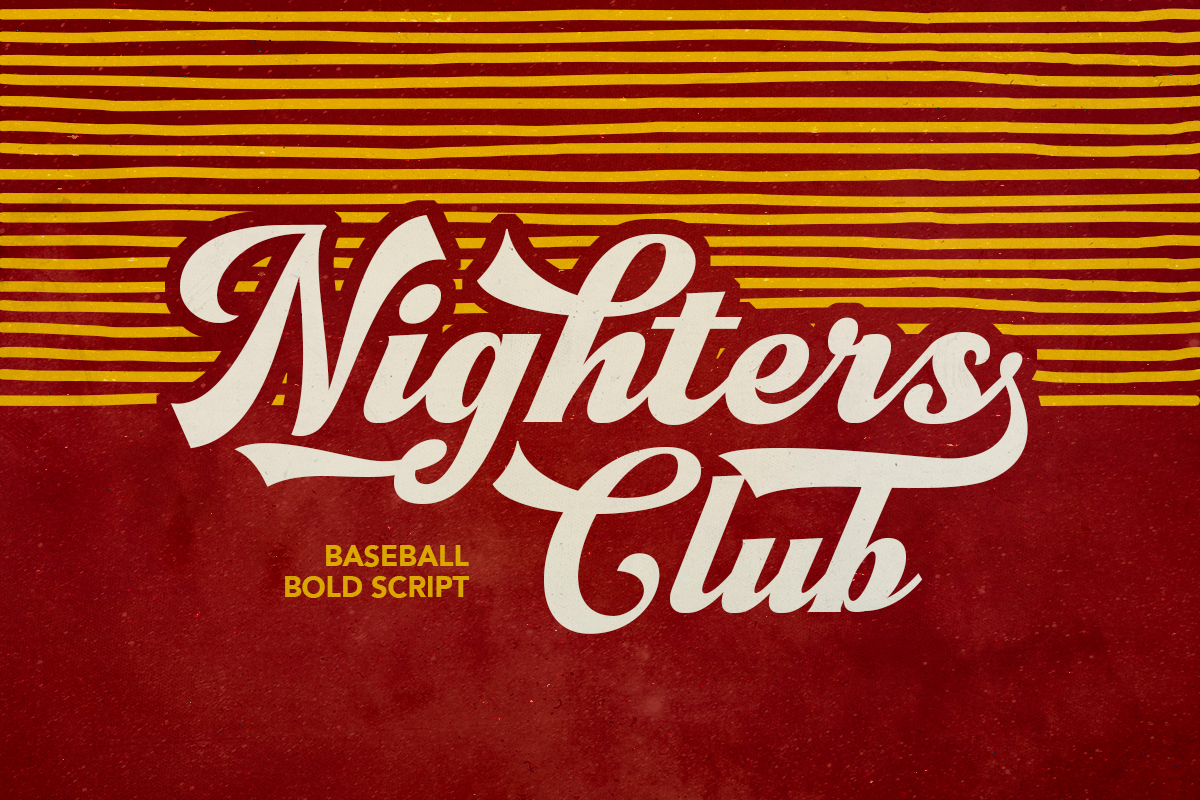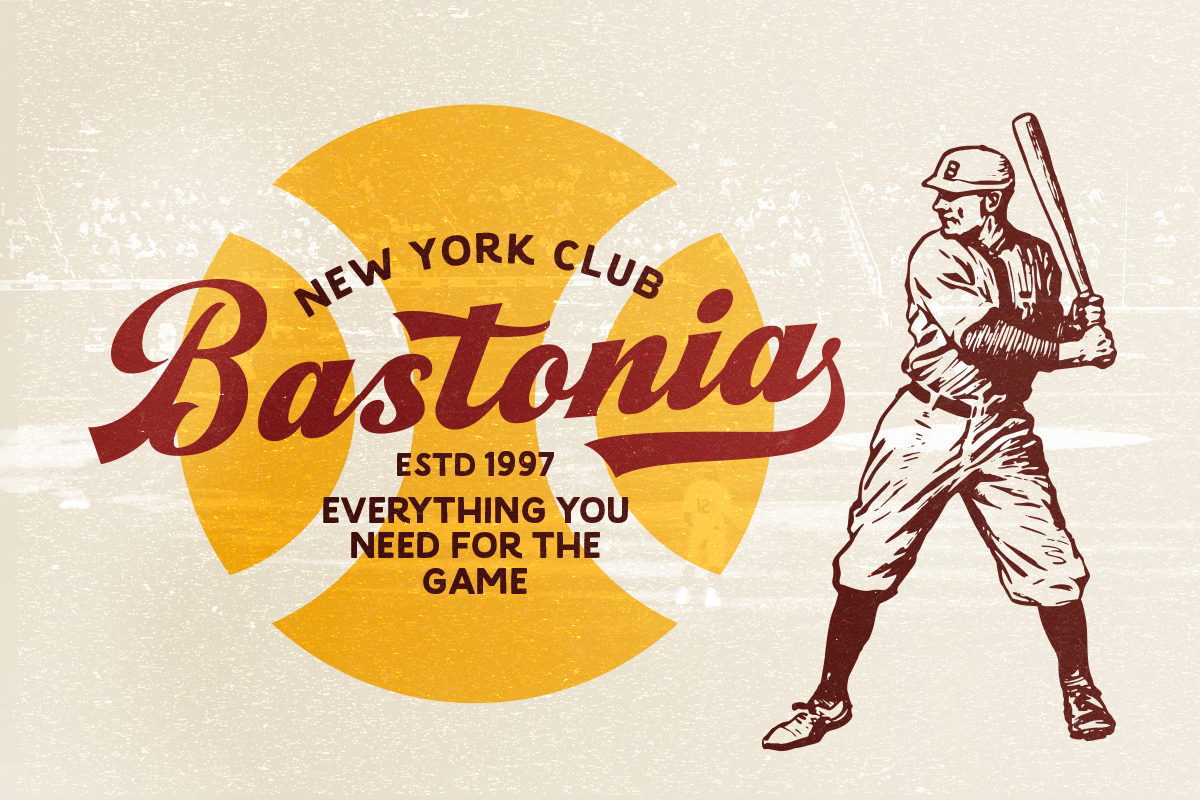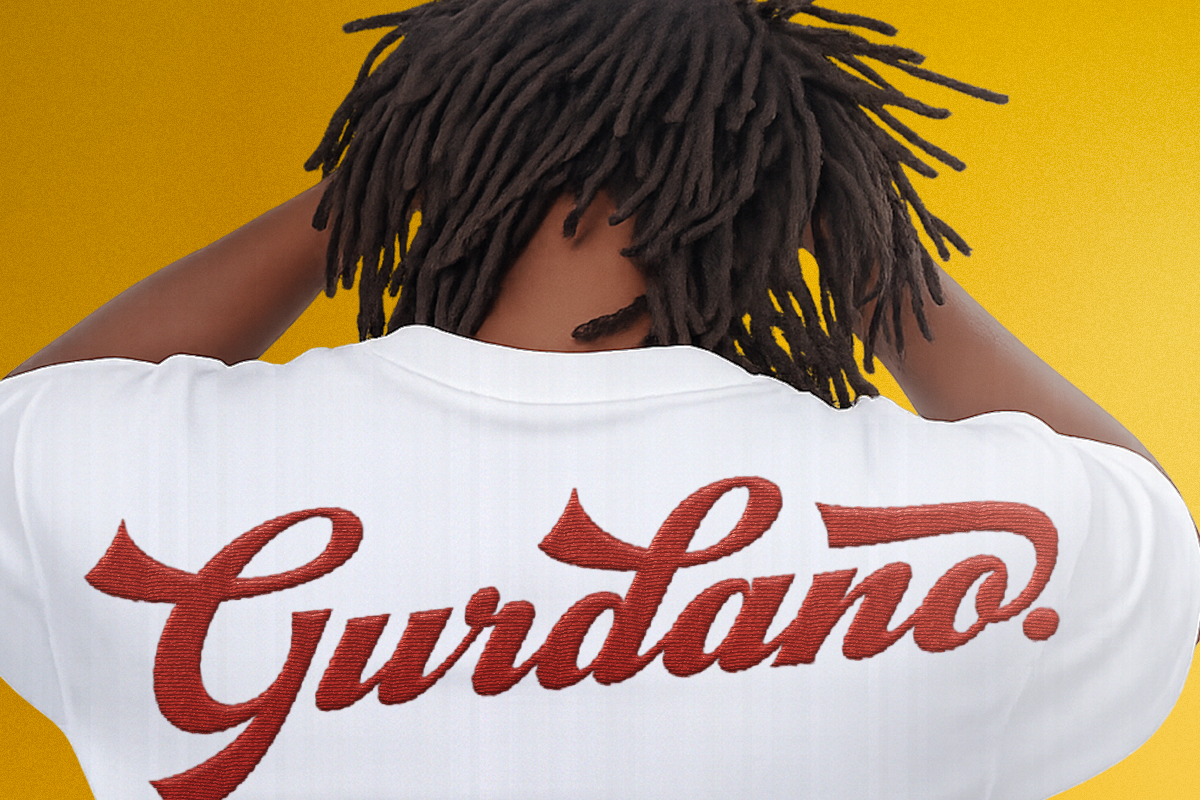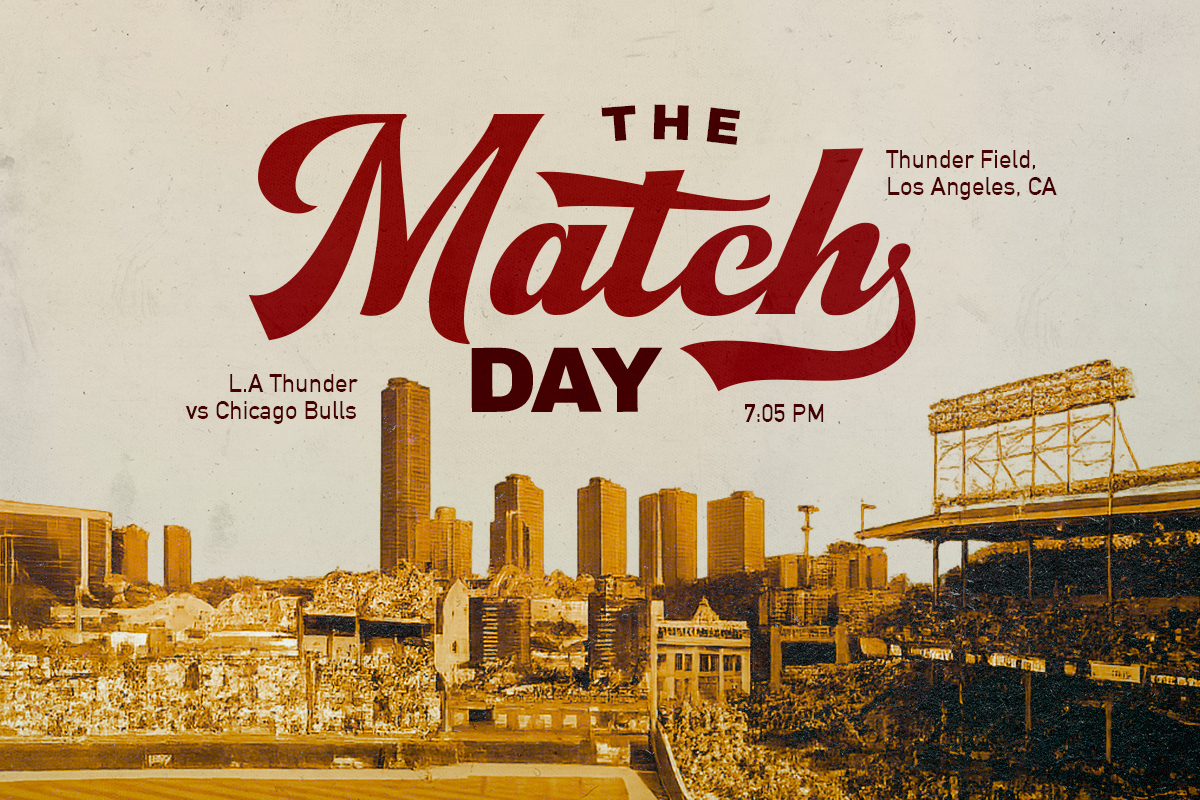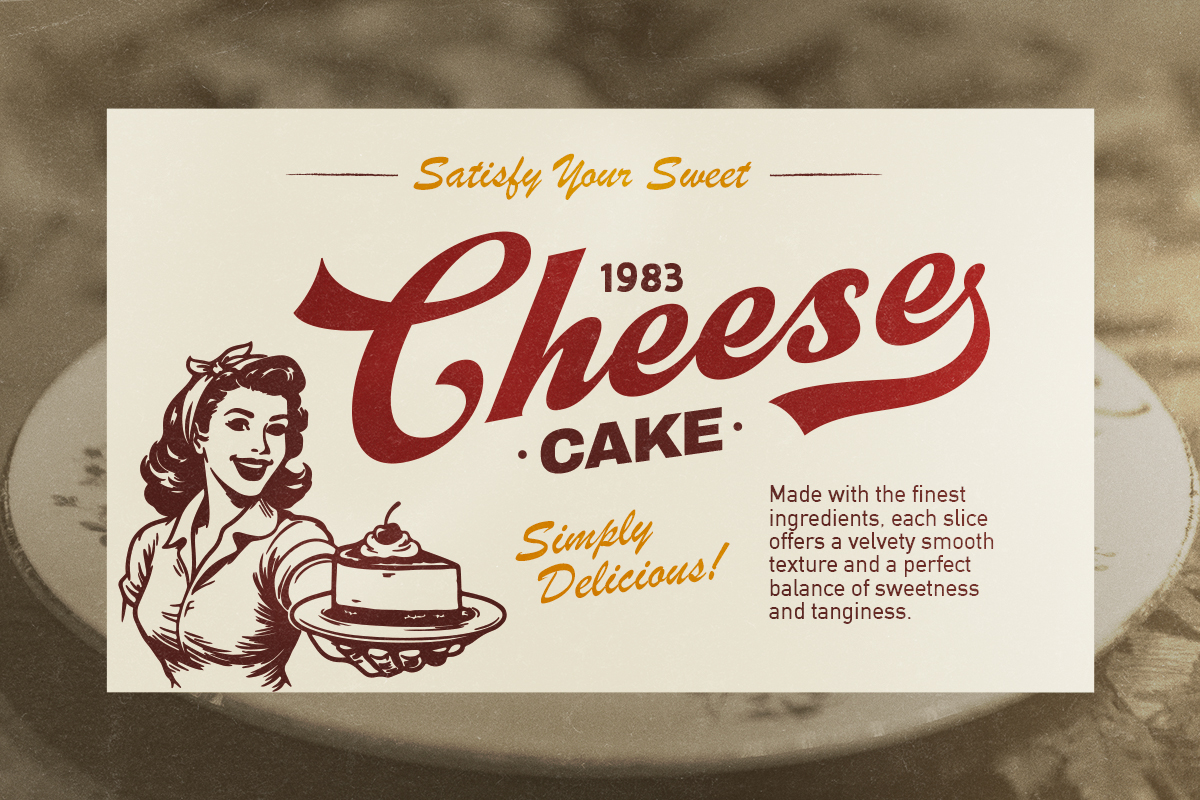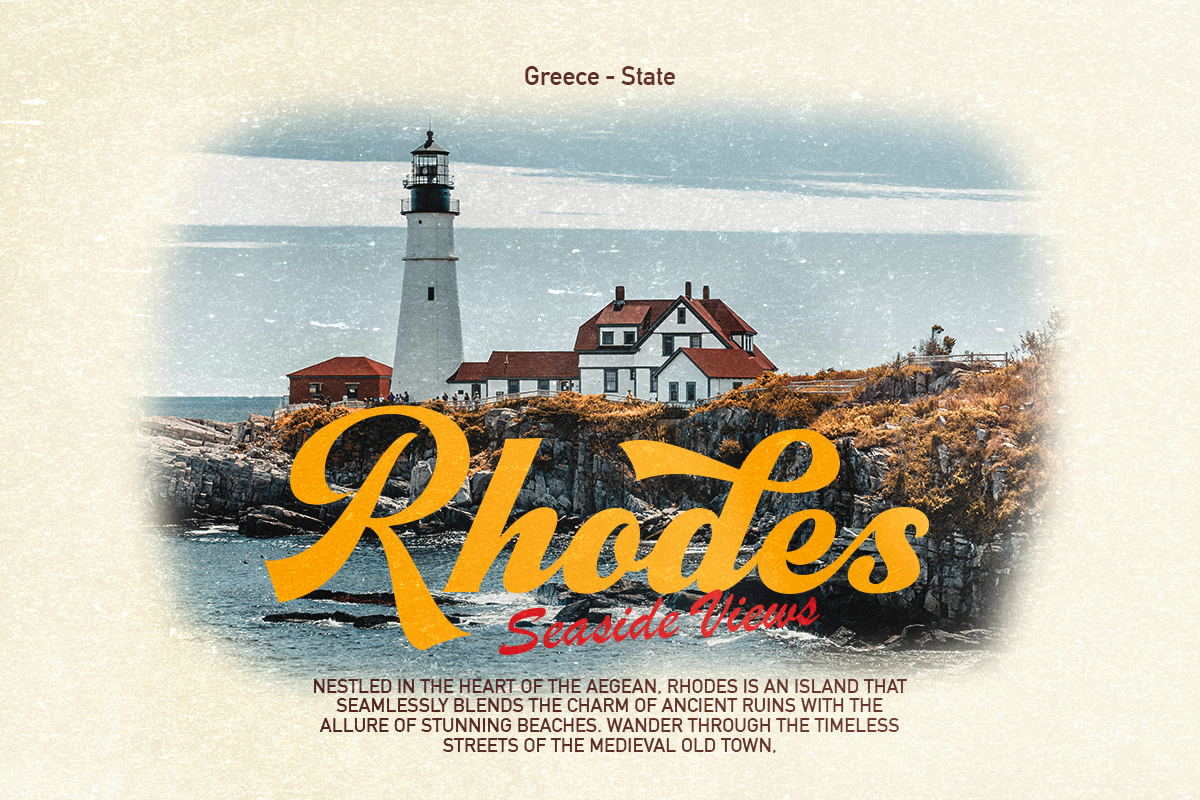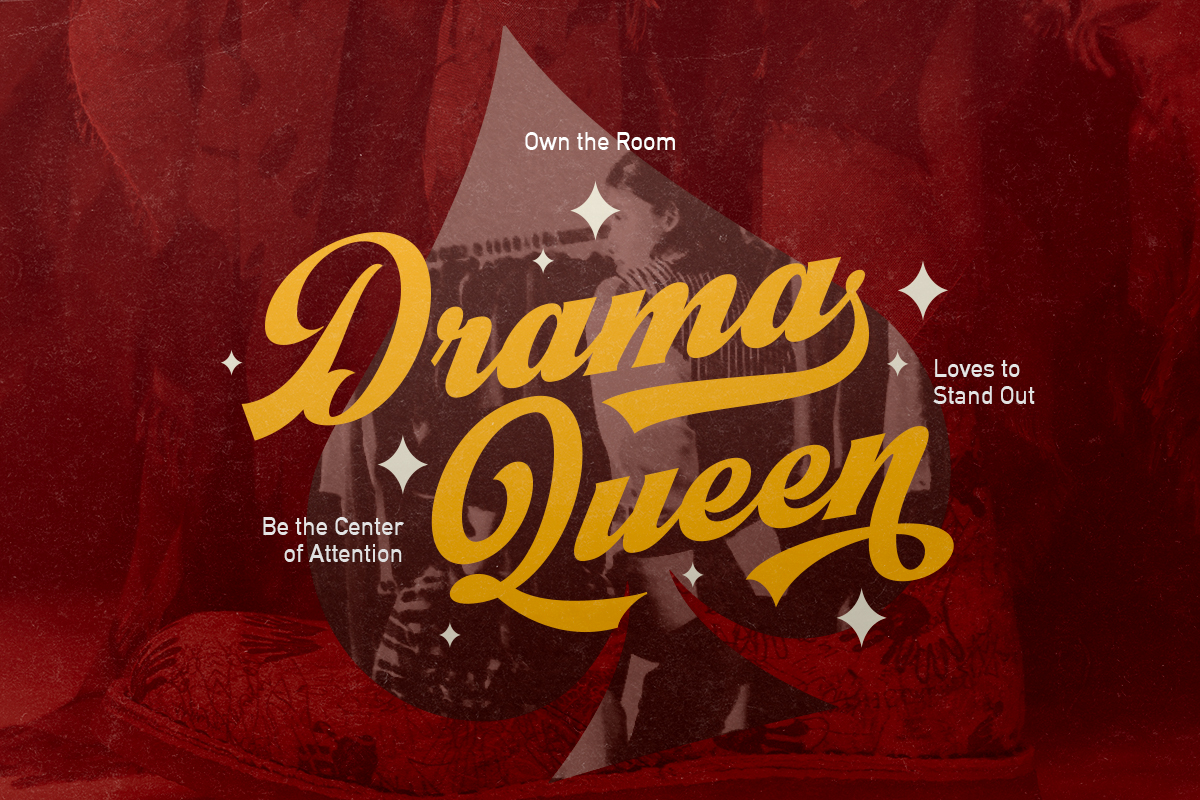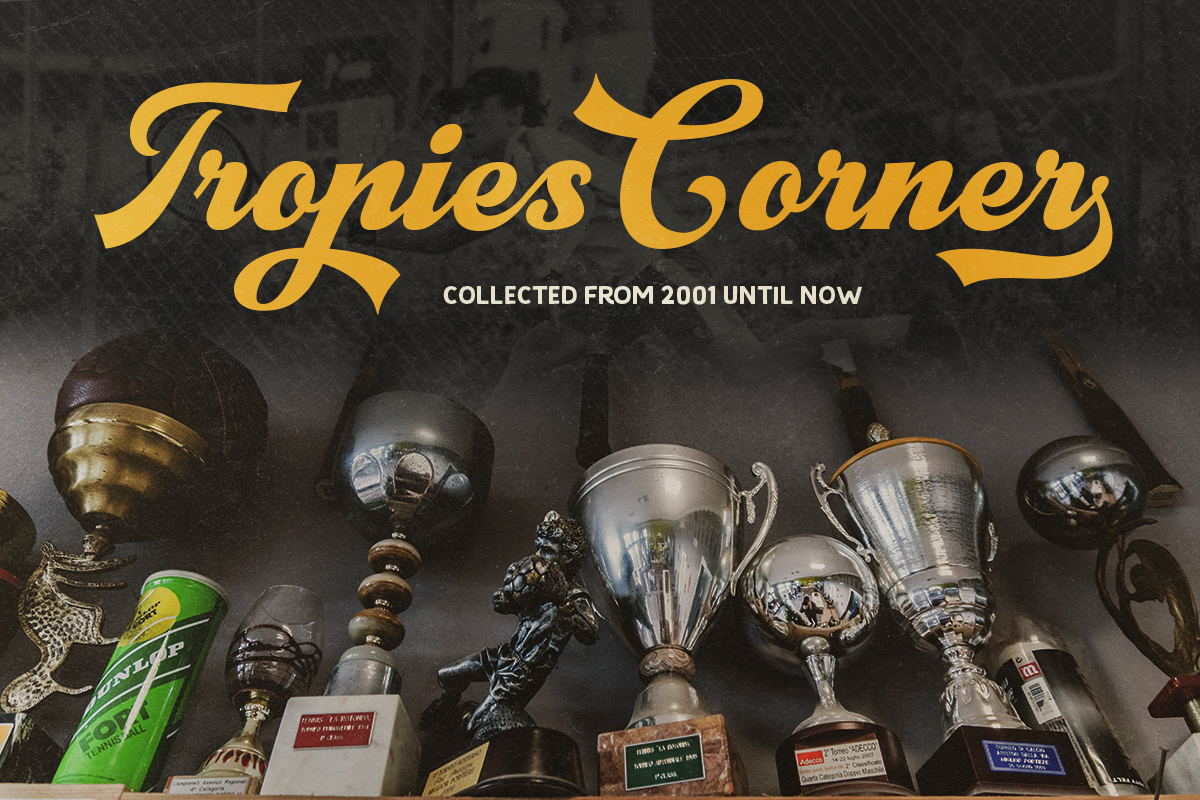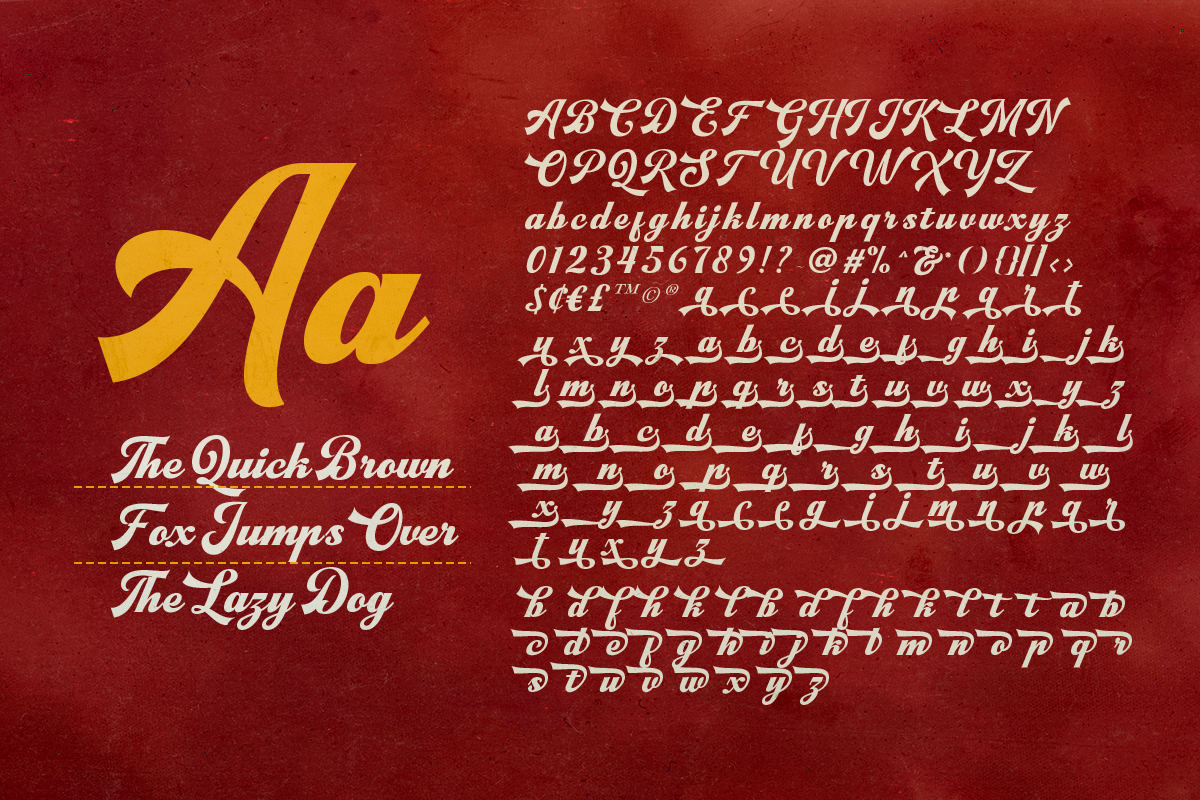
Nighters Club is a retro bold script with bunch of alternates. You can use this script font for any purposes such as branding, logotype, quotes, especially for logo sport like baseball. With alternates that have stunning style, this font can make your design more stand out. Nighters Club also support multi language.
Nighters Club – Baseball Bold Script
Nighters Club is a retro bold script with bunch of alternates.